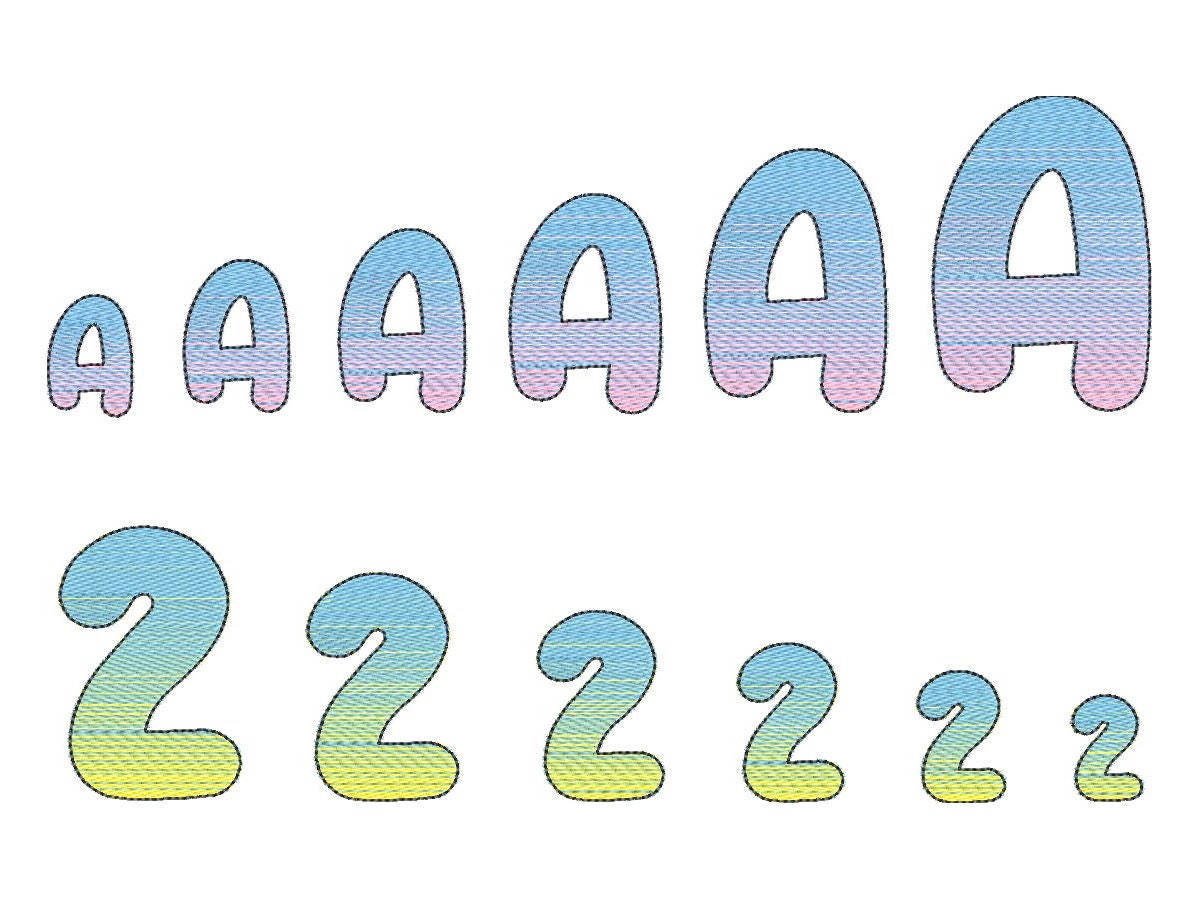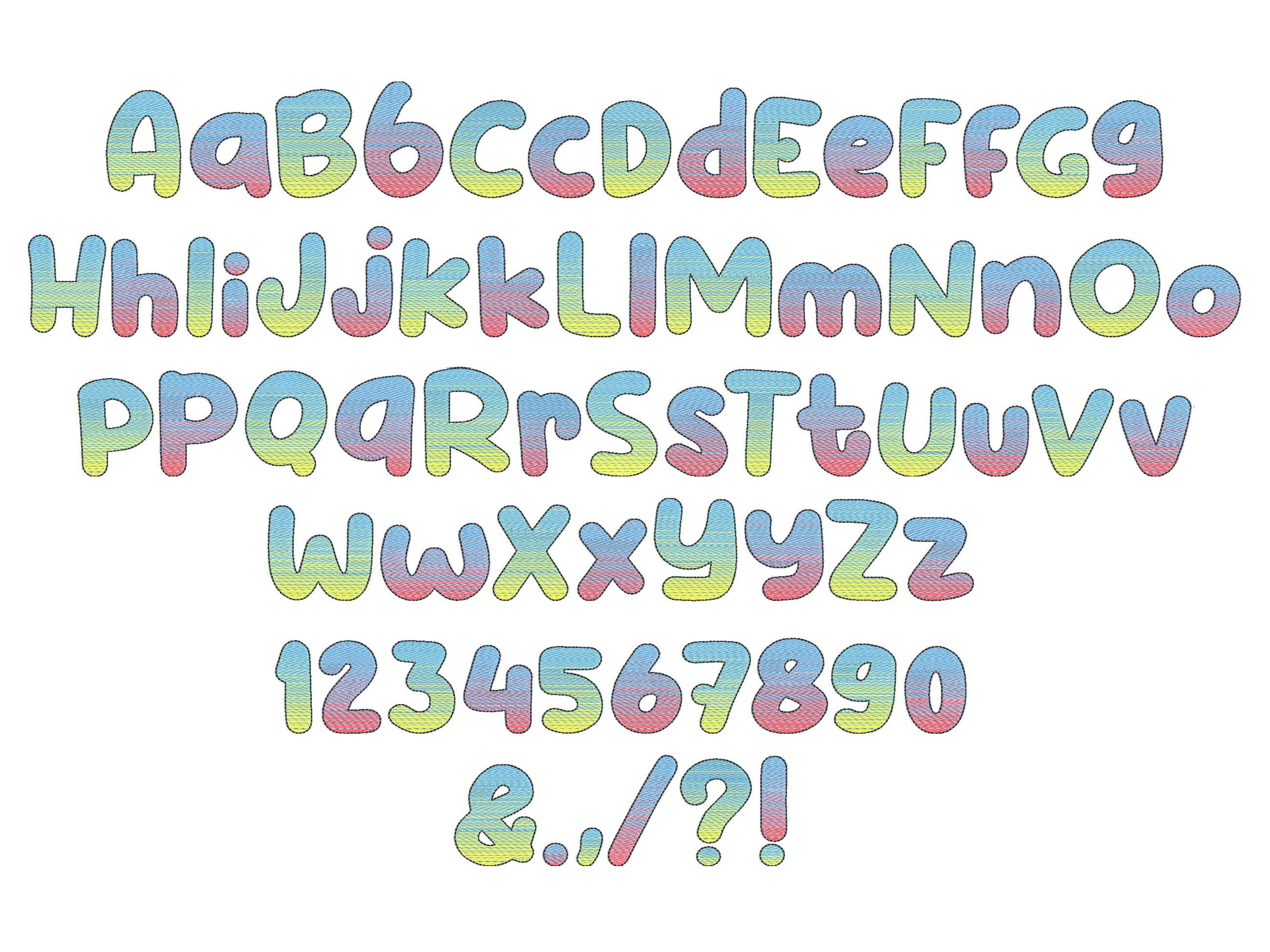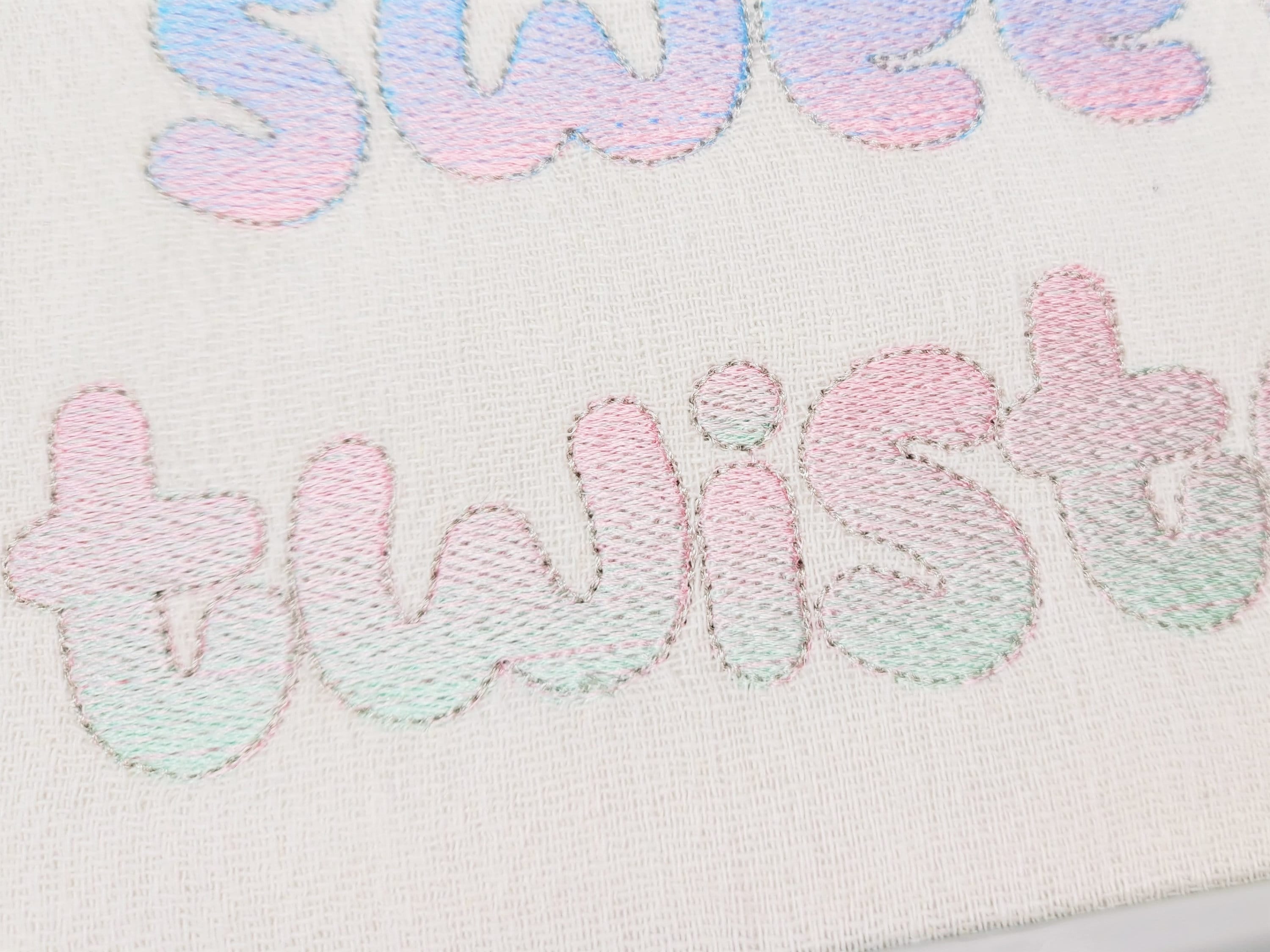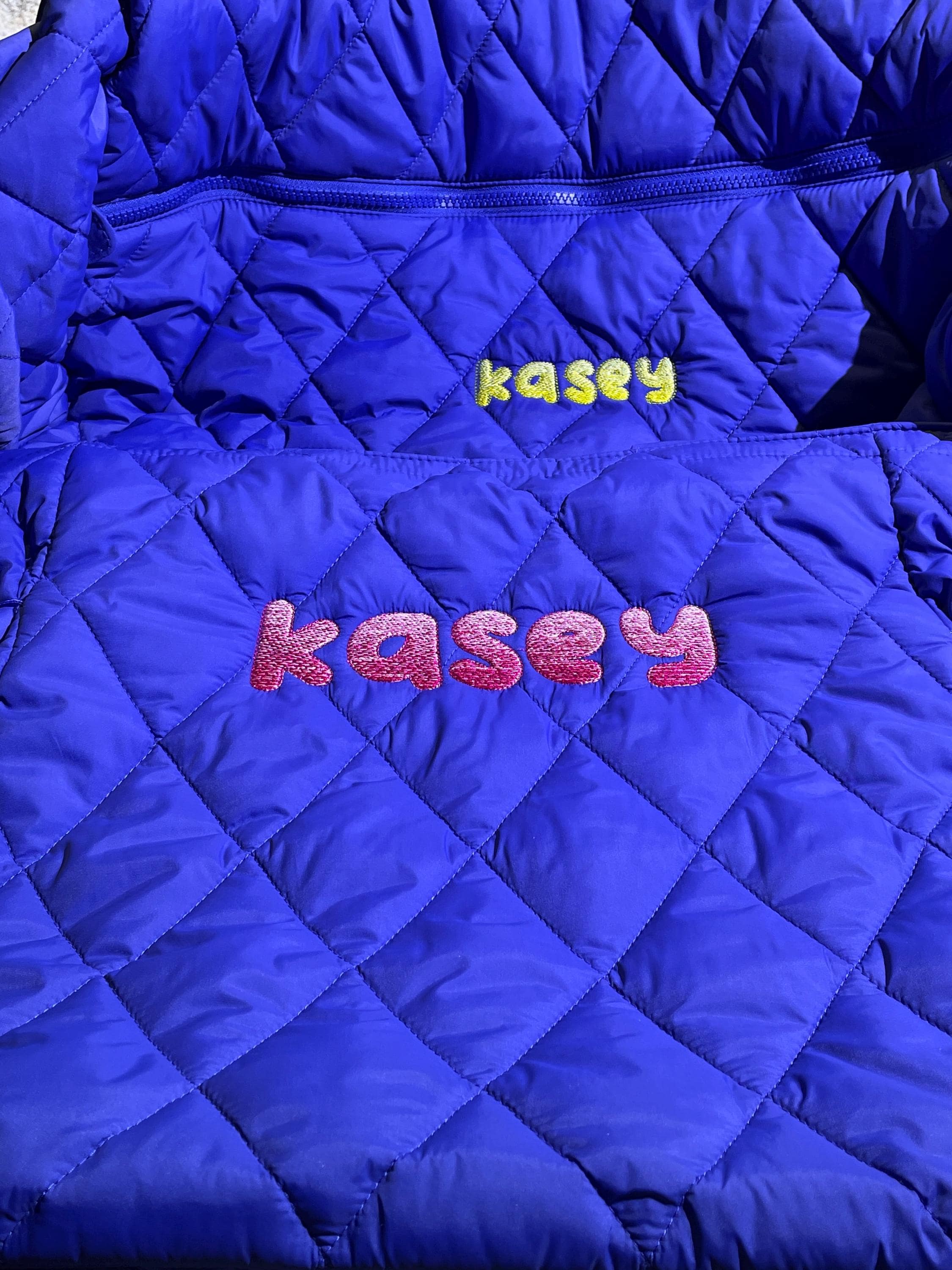
Rainbow Iridescent 2 Color Monogram FONT alphabet machine embroidery designs ombre gradient font embroidery BX included! NO special thread!
No special thread is required!
It looks incredible! For this font, regular threads are used (not multi-colored).
The letters are stitched from usual threads, just used two colors to make a nice Iridescent effect!
The pattern creates this amazing effect all by itself. Iridescent comes thanks to the design, it has 2 colors. Stitching on one side of letter it stitches more with one color and on the other side stitches less with the opposite color.